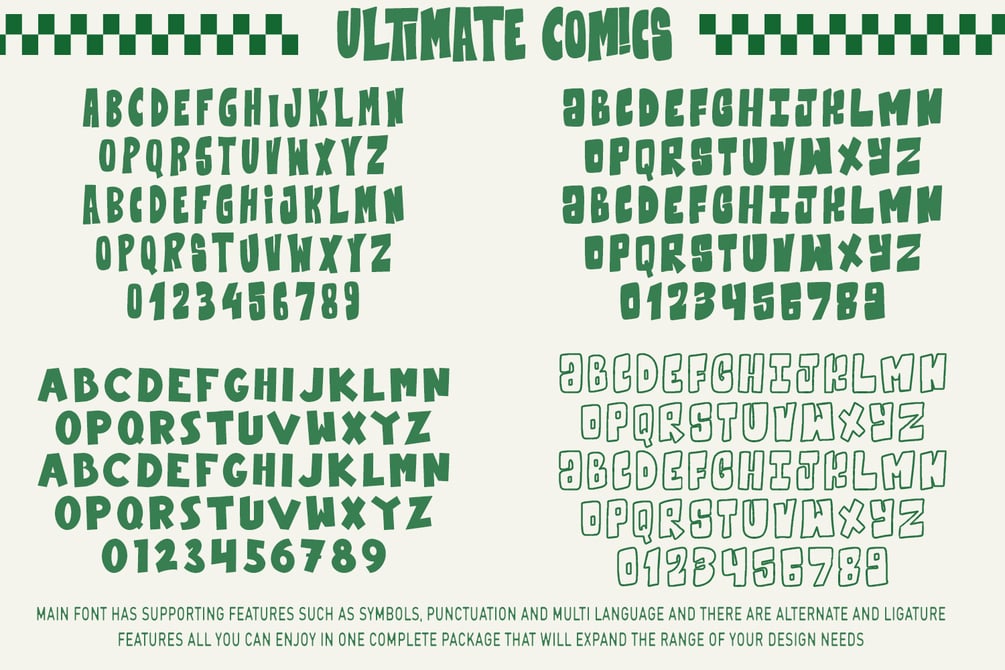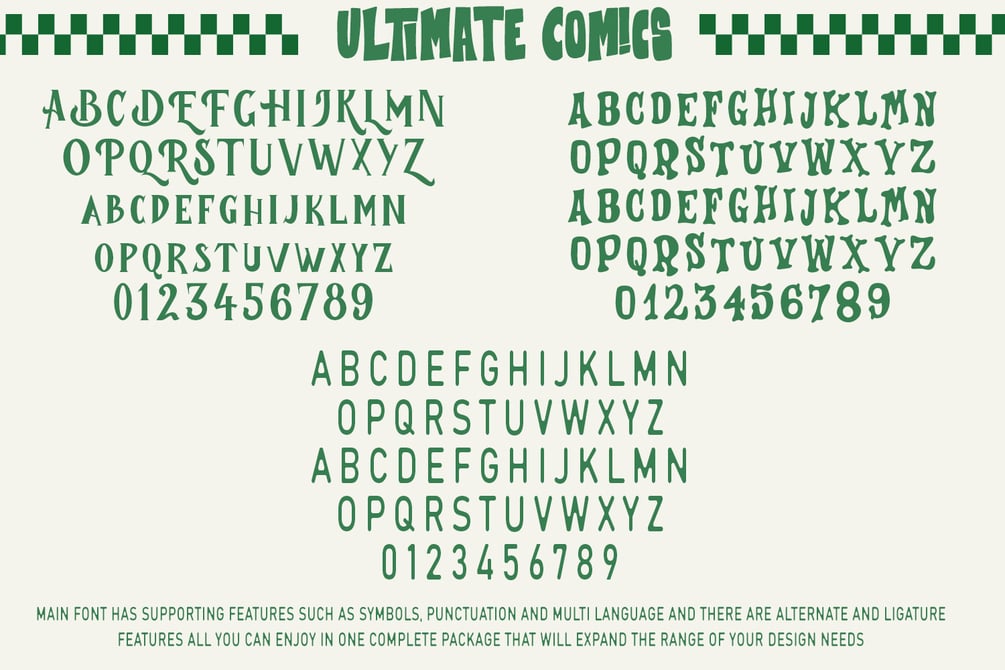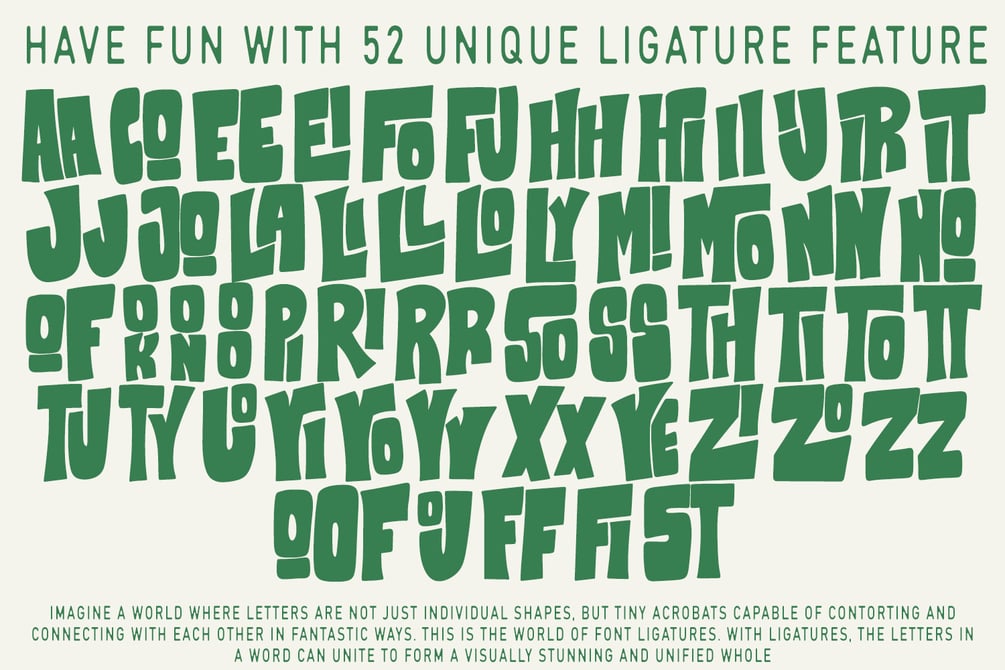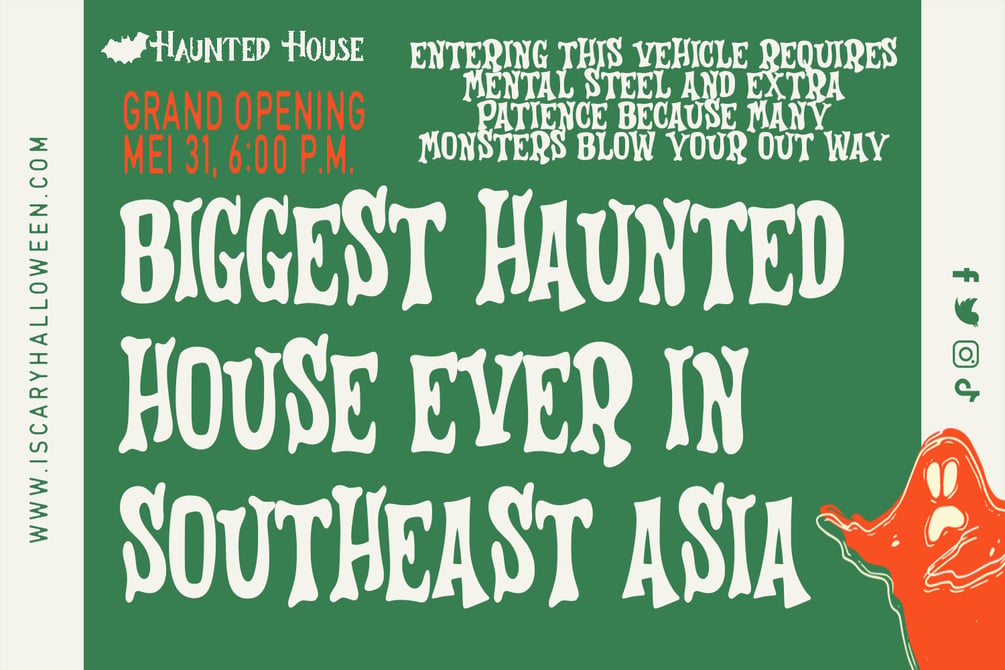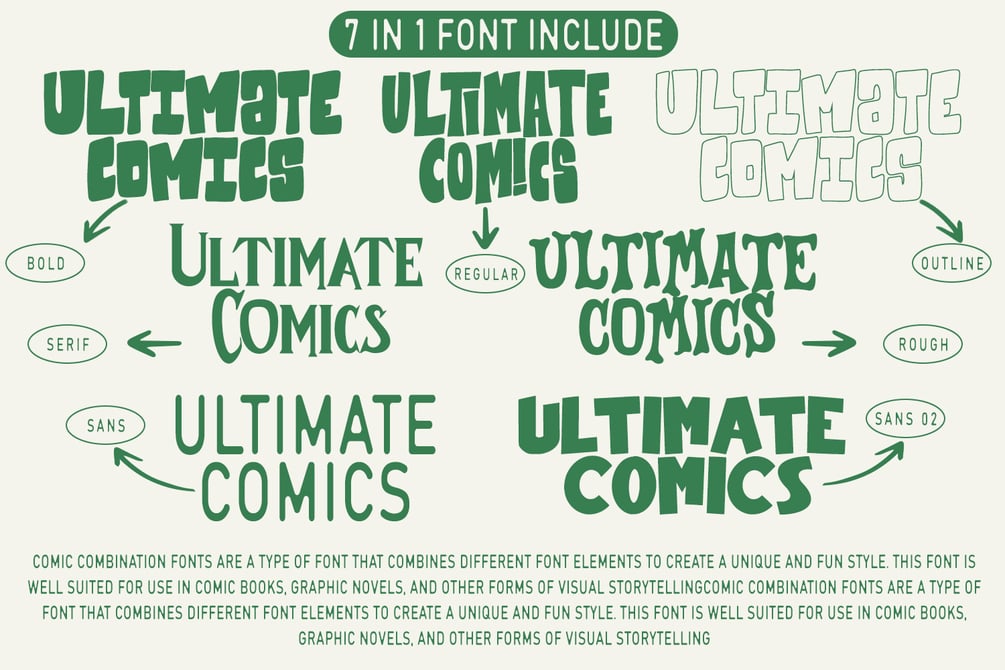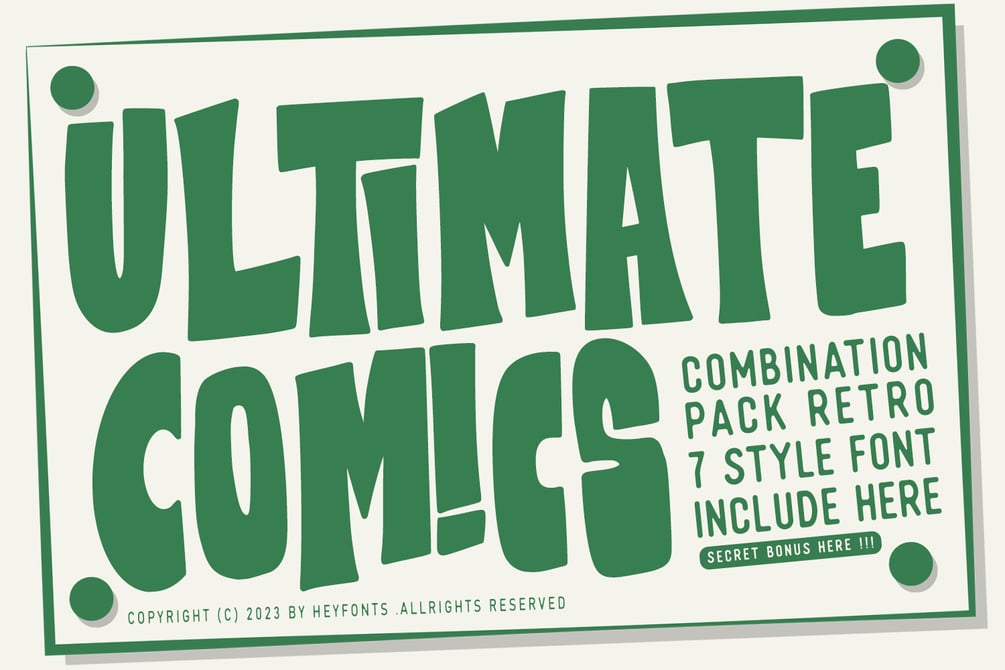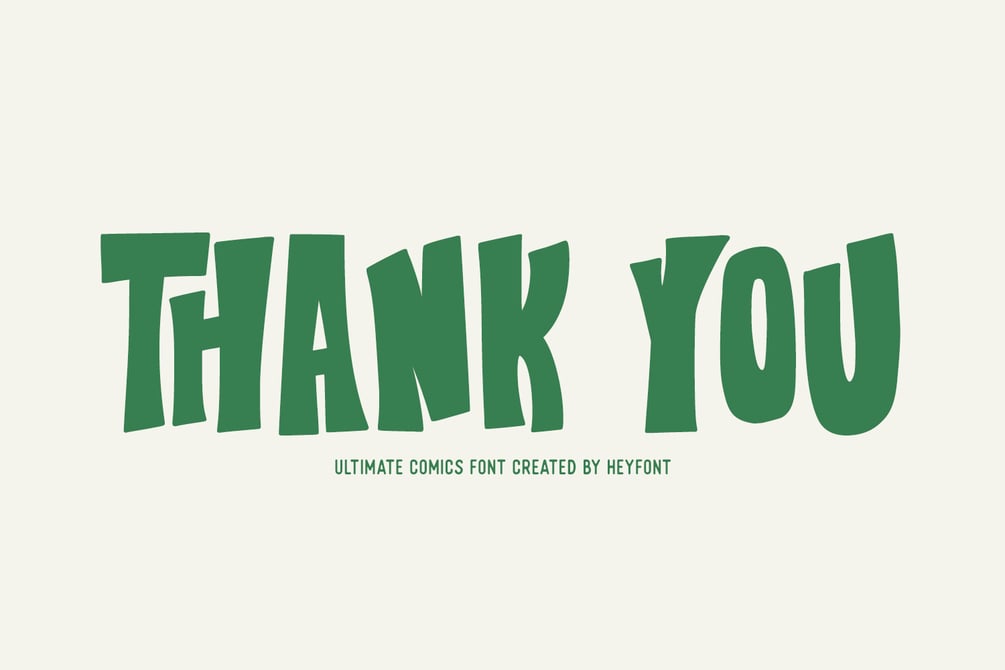
Ultimate Comics Font Pack
Comic combination fonts are a type of font that combines elements of different fonts to create a unique and fun style. These fonts are often used in comic books, graphic novels, and other forms of visual storytelling. The following are six popular comic combination fonts and a full description of their style and characteristics.
1. Ultimate Comics - Regular - This font is one of the most recognizable comic fonts due to its use in numerous settings, from cartoon strip to party invitations. It is characterized by rounded edges, playful dots, and whimsical lines. Ultimate Comics - Regular is easy to read, making it a popular choice for children's books and educational materials.
2. Ultimate Comics - Bold/outline - This font is a bold and playful font with thick, slab-like letters and a heavy weight that suits it to larger headlines. The font is reminiscent of comic book "kabooms" and "pow"s.
3. Ultimate Comics - Serif - This font is a fun and quirky display font that draws attention with its thin, elongated letters. The font features a bold, hand-drawn feel with unusual top and bottom curves on each letter.
4. Ultimate Comics - Rough - This font is a playful and quirky font that draws on traditional comic styling. The typeface exudes an energetic and carefree feel that invites readers to engage with the content. The letterforms are loose and funky.
5. Ultimate Comics - Sans - This font is a classic comic font characterized by chunky letters and angular flair. The font is available in a range of weights and styles, and it is often used for bold headlines with touches of humor and playfulness.
6. Ultimate Comics - Sans 02 - This font offers a playful and elegant style that blends comic design with elements of cursive handwriting. The font is notable for its curves and flowing lines and is best suited in bolder titles for added flair
In conclusion, the comic combination fonts are a unique and playful way to add personality to your design. They are best suited for comic books, graphic novels, and other forms of visual storytelling. With options ranging from classic comic styling to quirky and hand-drawn lettering, there is a comic combination font for every type of creative